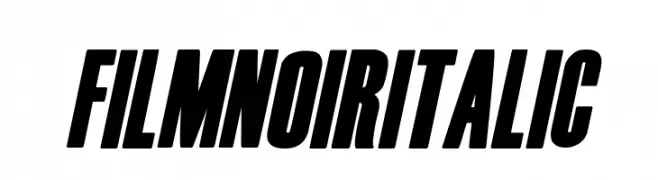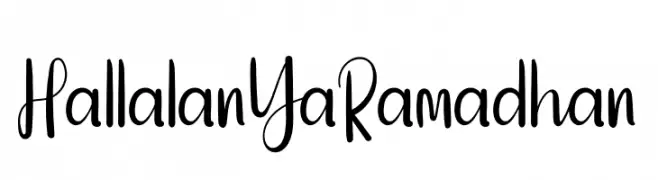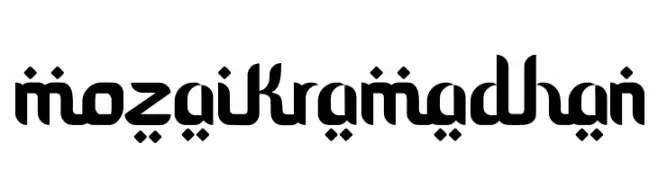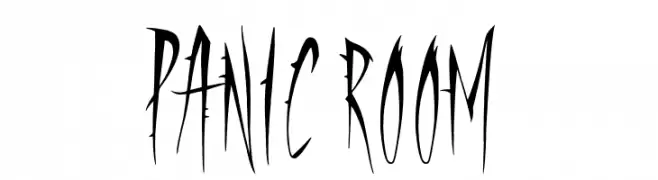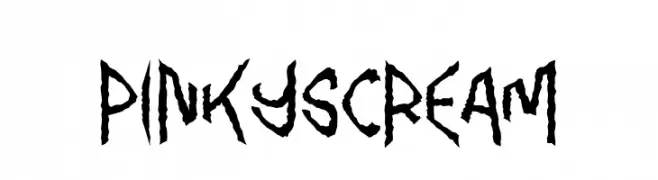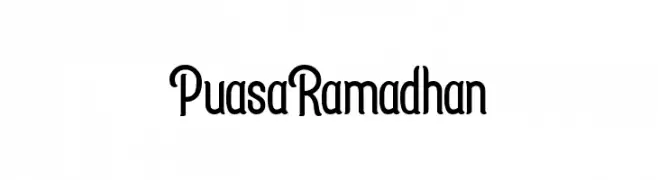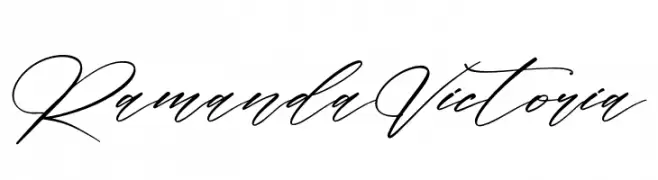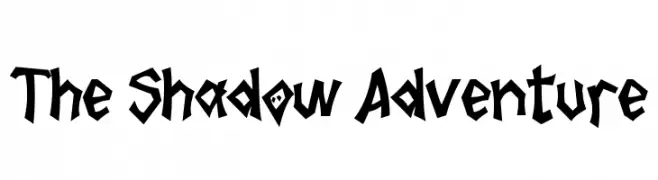
A jagged, edgy font with irregular strokes, perfect for dramatic designs.
A playful, handwritten font with fluid lines and varying stroke widths.
A sharp, thorny font with a dramatic and edgy appearance.
A bold, italic font with high contrast and tight spacing, exuding a dynamic and dramatic style.
A bold, angular font with a shadow effect for dramatic visual impact.
An elegant script font with fluid, interconnected strokes and ornate flourishes.
A bold, modern font with geometric shapes and a futuristic style.
A calligraphic, cursive font with modern elegance and fluid strokes.
A bold, ornate Blackletter font with intricate details and a gothic aesthetic.
A decorative font with playful, curved letterforms and subtle serifs.